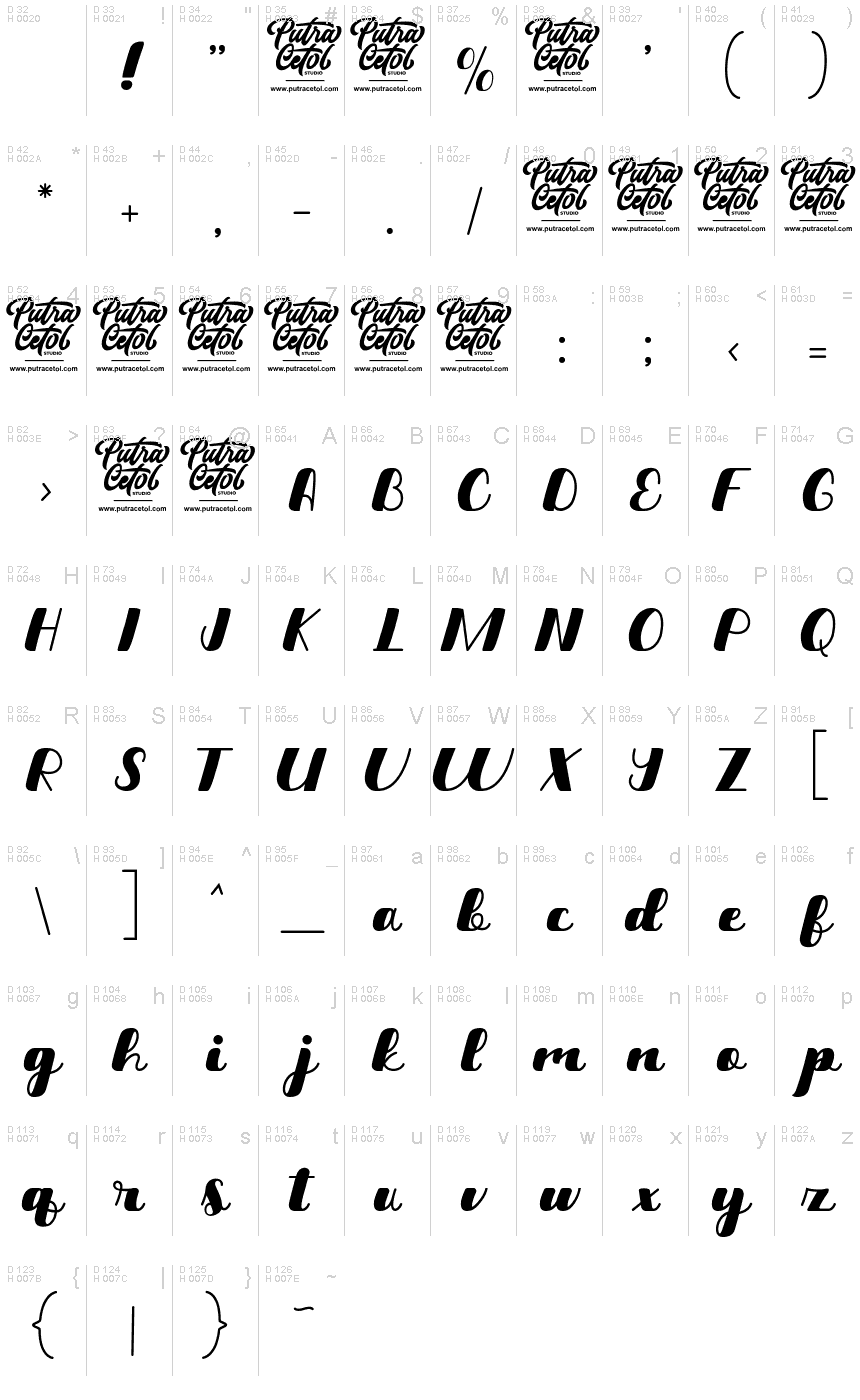
Magic Letter
Magic Letter, the mesmerizing display font designed by PutraCetol Studio, is perfect for any project that needs a touch of playful elegance. The semi-bold typeface boasts a unique handwritten style that accentuates its whimsy and sophistication. From invitations to branding materials, Magic Letter is versatile enough to suit any creative endeavor. Its captivating design and legibility make it ideal for headlines, titles, and logos in both print and digital media. Use Magic Letter to add an enchanting flair to your next project and watch as it casts its spell on your audience.